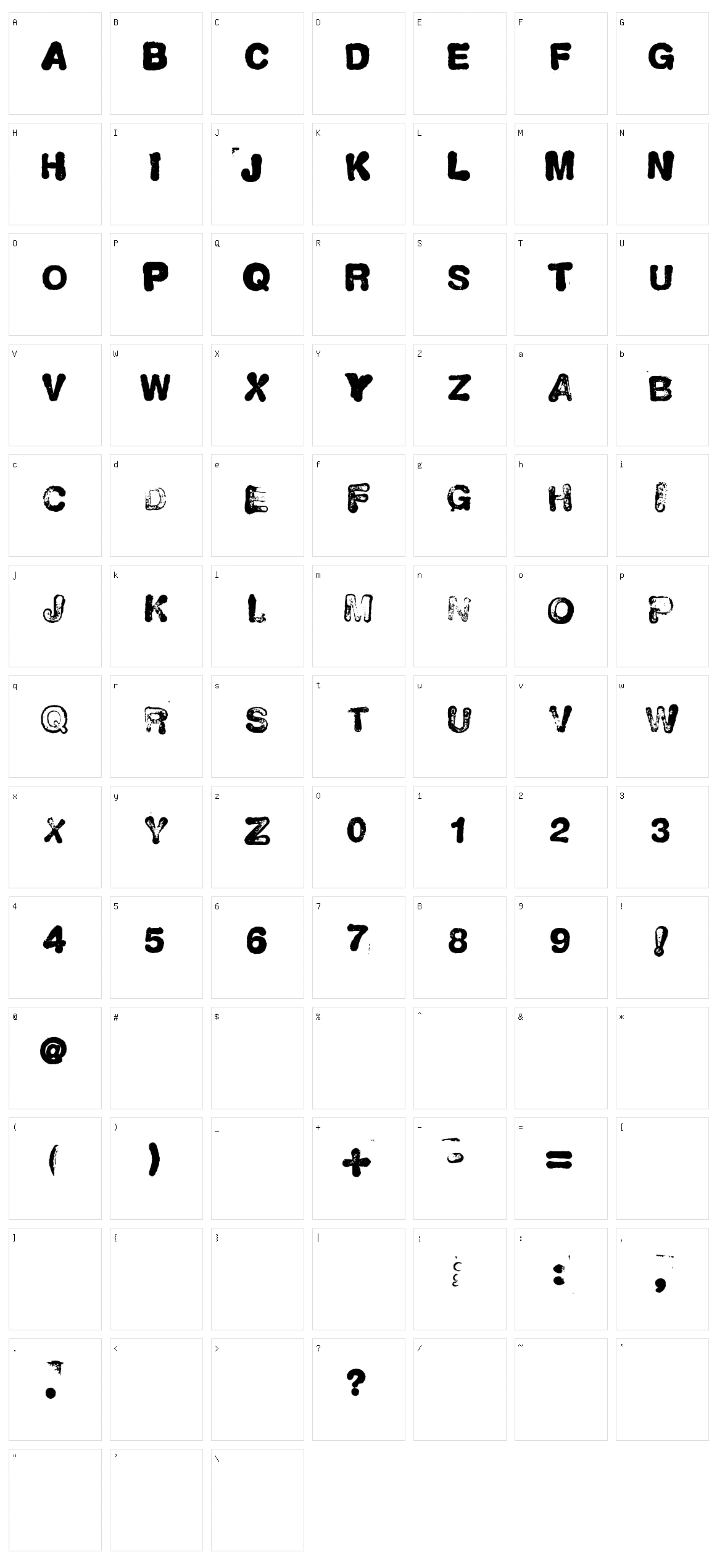
The free font Neuvo-Sello is carefully designed by Colm Clafferty, showcasing a thoughtful balance of creativity and usability and falls under the Eroded font style. When you download the ZIP file, it contains only 52.74 KB of font files, making it lightweight and quick to download. Please review the license details below to understand permitted usage and distribution rights. If license information is not available, we recommend using this font for personal projects only or contacting the author directly for commercial usage permissions.